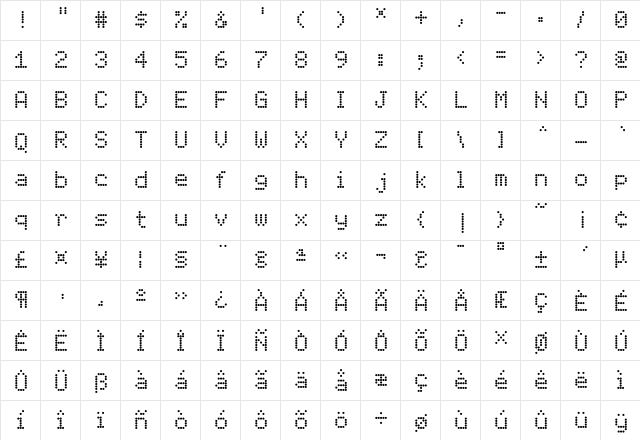
DotMatrix TwoRegular
Design Context for DotMatrix Typeface
DotMatrix celebrates the constraints of early digital type, turning pixel geometry into a distinctive and immediately recognisable style.
Well-suited to indie game interfaces, retro computing aesthetics, and pixel art-adjacent design work.